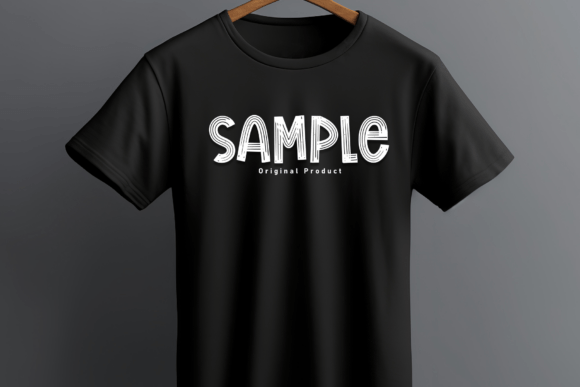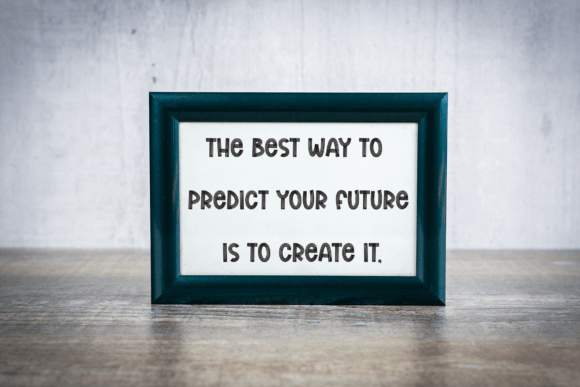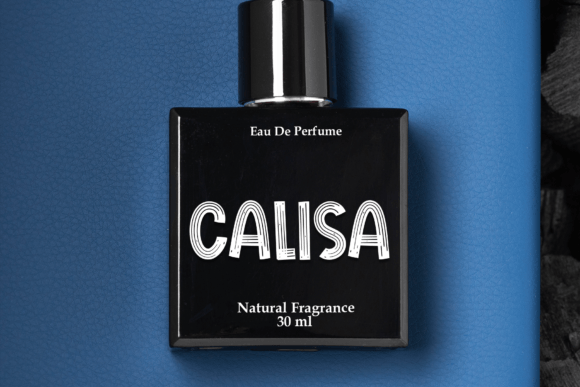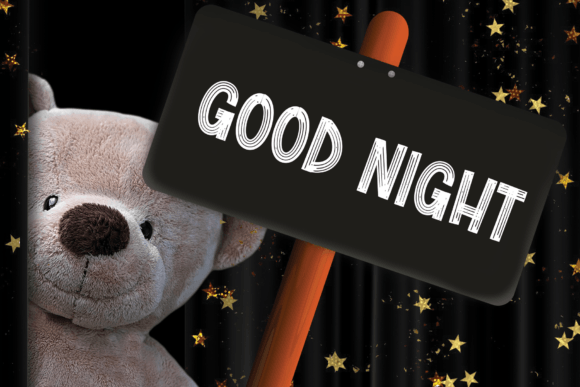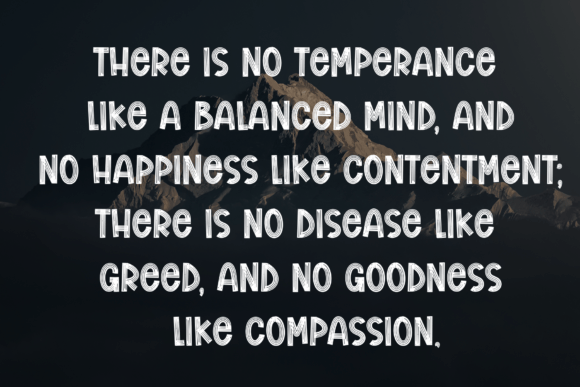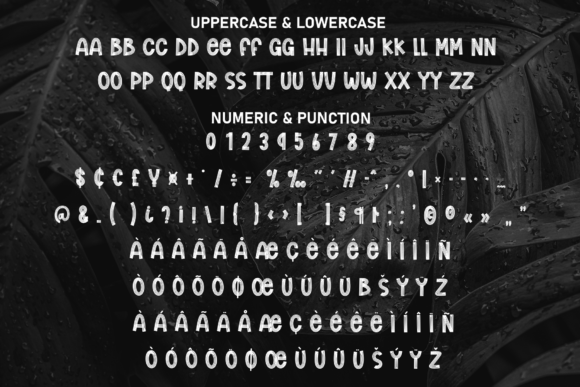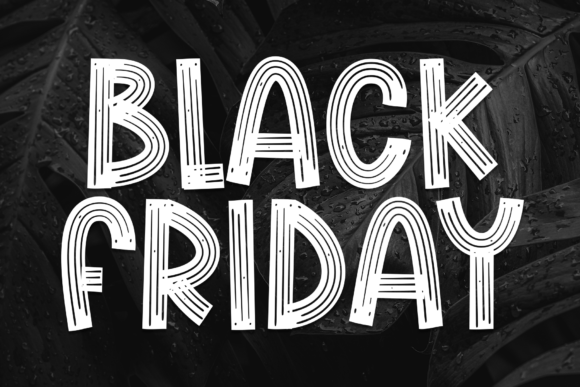
The Magic of Black Friday Font: Elevate Your Designs with Elegance and Whimsy
I’ll never forget the time I was working on a wedding invitation project, and my client asked for a font that was both elegant and playful. I scoured the internet, trying out font after font, but nothing seemed quite right. That was until I stumbled upon the Black Friday Font. ✨ It was like a breath of fresh air – sweet, amiable, and utterly charming. In this article, I’ll share my love for this beautiful handwritten display font and provide you with a comprehensive guide on how to make the most of it.
I’ve had the pleasure of working with Black Friday Font on several projects, and here’s what I think:
- ✅ Elegant and Playful: This font embodies the perfect balance of sophistication and whimsy, making it ideal for wedding invitations, cards, and other designs that require a touch of personality.
- ✨ Vibrant Personality: The font exudes a fun, gentle, and delightful vibe that’s sure to elevate your projects and make them stand out.
- ✅ Authentic and Personal: The handwritten feel of Black Friday Font gives your designs a warm, personal touch that’s hard to achieve with more traditional fonts.
Now, I’m not saying it’s perfect – there are a few quirks to be aware of:
- ⚠️ Limited Use Cases: While Black Friday Font is amazing for certain projects, it may not be the best choice for body text or more formal designs.
- 🤔 Kerning Issues: As with any font, you may need to adjust the kerning to get the best results, especially when using it in combination with other fonts.
The Story Behind Black Friday Font
While the origins of Black Friday Font are shrouded in mystery, it’s clear that the designer was inspired by the beauty of handwritten script. With its elegant strokes and playful flair, it’s no wonder this font has become a favorite among designers and crafters.
| What is Black Friday Font best used for? | Black Friday Font is ideal for wedding invitations, cards, and designs that require a touch of elegance and whimsy. |
| Is Black Friday Font suitable for body text? | While Black Friday Font is beautiful, it’s not recommended for body text due to its elegant and playful nature. |
Black Friday Font is a true gem in the world of typography. Its elegant and playful personality makes it perfect for a variety of design projects. With its ease of use and versatility, you’ll be creating stunning designs in no time. So go ahead, unleash your creativity, and let Black Friday Font elevate your artwork to new heights! 🎉